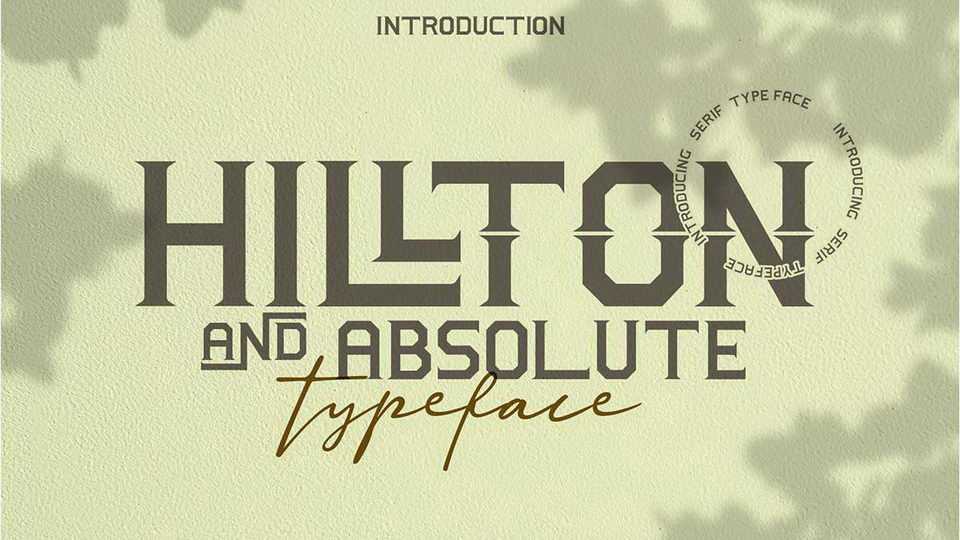
Download Hillton and Absolute font, a vintage serif typeface that is perfect for brand logo, invitations, greeting card. Hillton and Absolute would further enhance the aestethical aspect of your work.